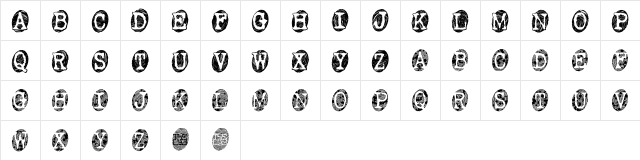
Powderfinger Smudged Regular
| Designer | Neumat Ick & Apostrophe (') |
Design Context for Powderfinger Smudged Typeface
Powderfinger Smudged is a composed and adaptable typeface that performs quietly and consistently across a wide range of design contexts.